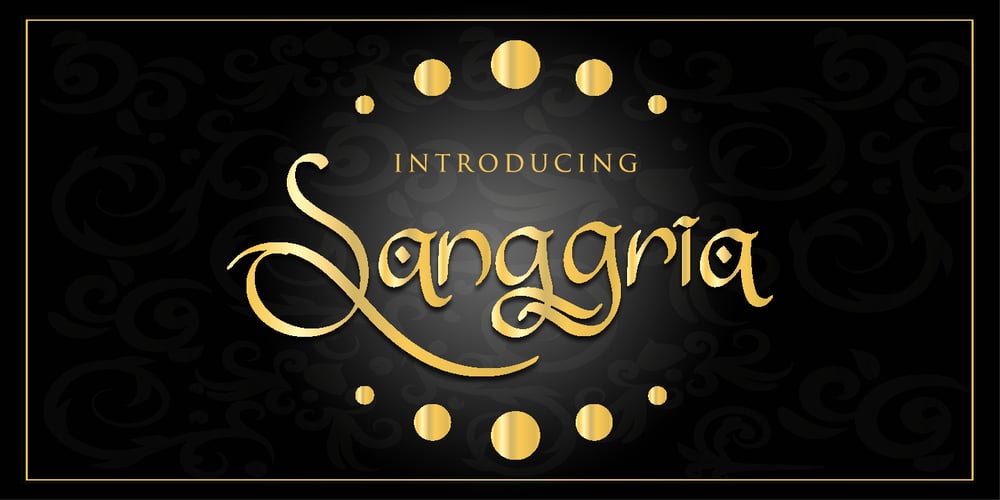
Sanggria Font Family was designed by Dimas Prasetyo and published by DM Studio. Sanggria contains 1 styles and family package options. The Sanggria Calligraphic Font is a beautifully crafted typeface that exudes elegance and sophistication. With its graceful, flowing letterforms and intricate details, this font adds a touch of timeless beauty to your designs, making it perfect for wedding invitations, formal correspondence, branding, and other projects that require a sense of refinement and artistry.Features: Calligraphic Elegance: The Sanggria Font is designed in a classic calligraphic style that embodies grace and sophistication. Its flowing, cursive letterforms create an aura of timeless beauty, making it ideal for projects that require an elegant and artistic touch. Intricate Details: The font’s intricate details and delicate flourishes add an extra layer of artistry to your typography. It captures the essence of traditional calligraphy, bringing a sense of craftsmanship and refinement to your designs. Versatile Application: This font is versatile and well-suited for various design projects that aim to evoke a sense of elegance and style. Use it in wedding invitations, formal documents, branding materials, packaging, and more to infuse your designs with a touch of classic beauty. Uppercase and Lowercase Letters: The font includes both uppercase and lowercase letters, providing flexibility and creative freedom in your designs. Mix and match the cases to create visually appealing and harmonious typography. Ligatures , Stylistic Alternates and Swashes: The Sanggria Font offers a selection of ligatures, stylistic alternates and Swashes that enhance the visual interest of your text. These special characters create unique connections between letters and alternate forms, allowing you to create sophisticated and personalized typography. Punctuation and Symbols: In addition to the alphabet, the Sanggria Font includes a comprehensive set of punctuation marks, numerals, and common symbols. This ensures consistency and ease of use when incorporating the font into your design projects. Easy to Use: Installing and utilizing the Sanggria Calligraphic Font is hassle-free. It is compatible with both Windows and Mac operating systems and seamlessly integrates into popular design software such as Adobe Photoshop, Illustrator, and InDesign. This ensures a smooth and efficient design workflow. Elevate your designs with the timeless beauty of the Sanggria Calligraphic Font. Let its graceful, flowing letterforms and intricate details bring an aura of elegance and sophistication to your wedding invitations, formal documents, and branding materials. Embrace the artistry of this font and create designs that exude classic beauty and refinement.